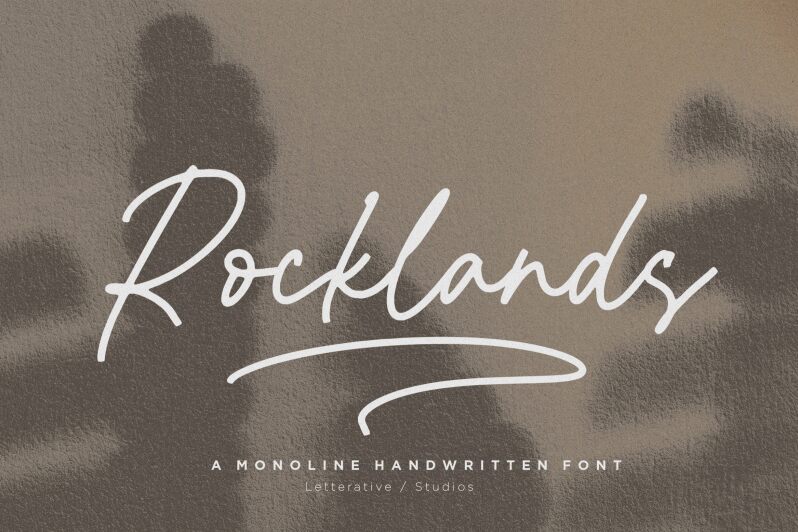
Rocklands
Rocklands, crafted by Letterative Studio, captivates with its monoline handwritten, signature-inspired style. This light, flowing font exudes a sense of effortless elegance and personal touch, inviting the reader to engage with its organic, expressive strokes. The Rocklands typeface seamlessly blends the warmth of handwriting with a refined, modern sensibility, making it a versatile choice for a wide range of design applications.
The Rocklands font's distinct characteristics lend themselves beautifully to projects seeking a touch of personalization and authenticity. Its signature-like appearance adds a personalized flair to branding, stationery, or social media content, while the light weight and graceful curves create an inviting, approachable aesthetic that can elevate everything from editorial layouts to product packaging.